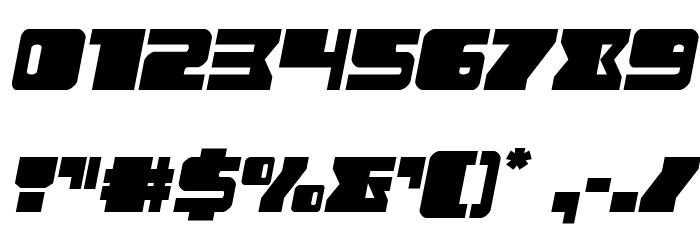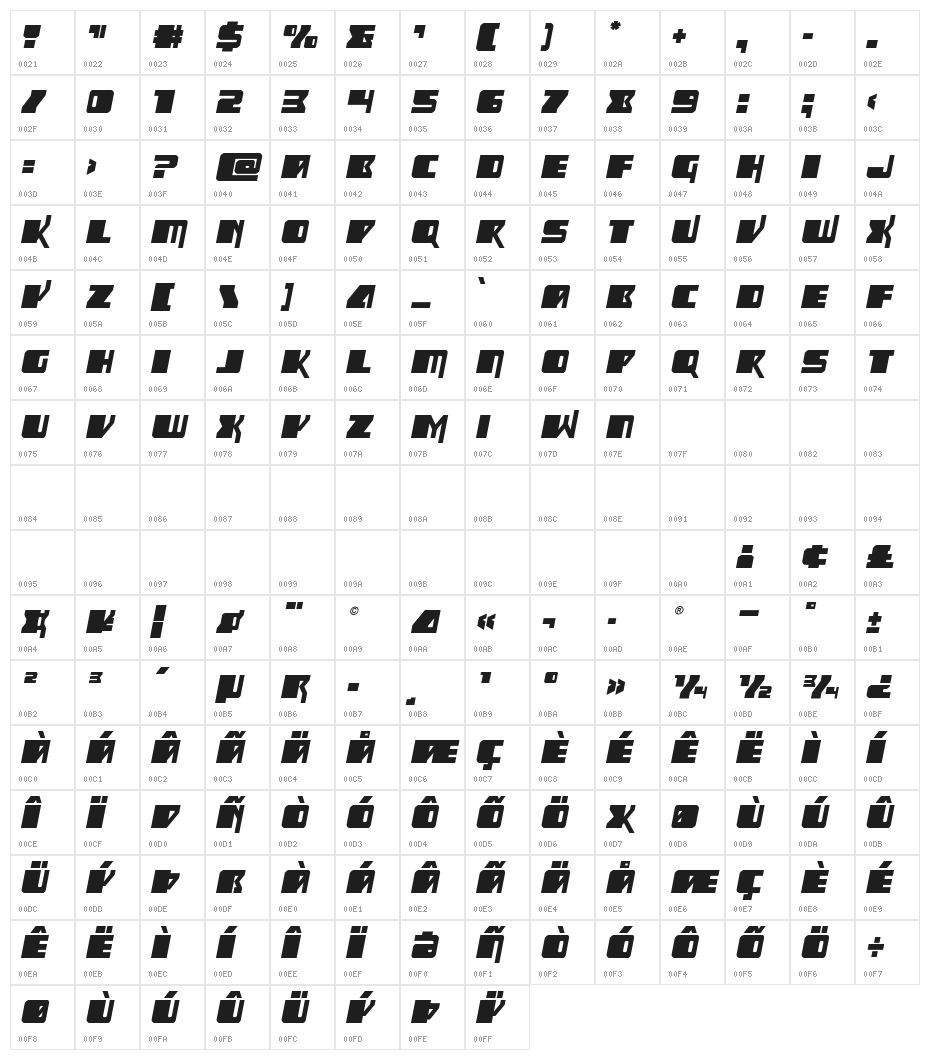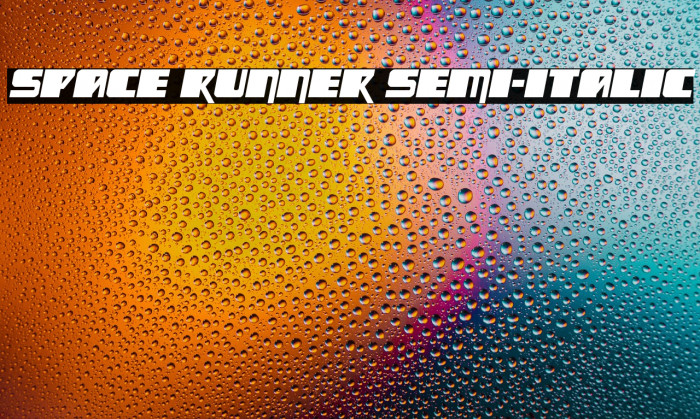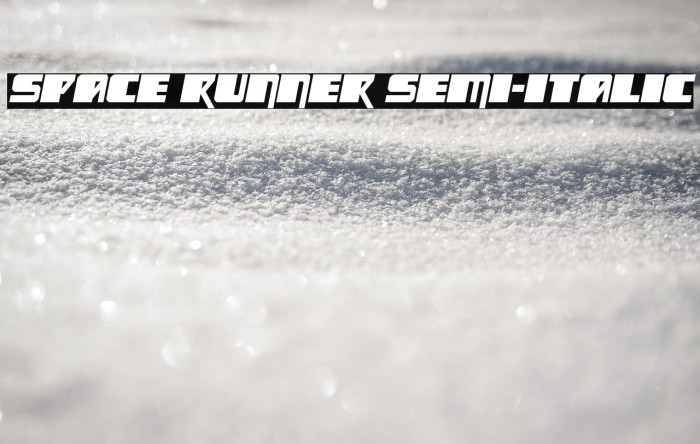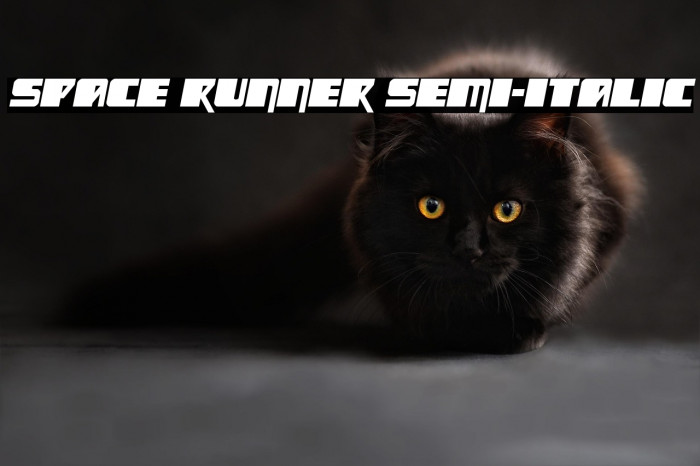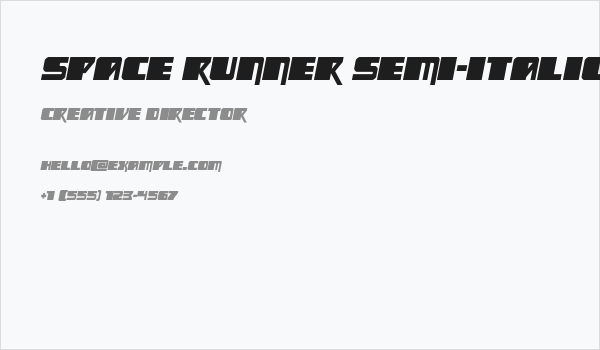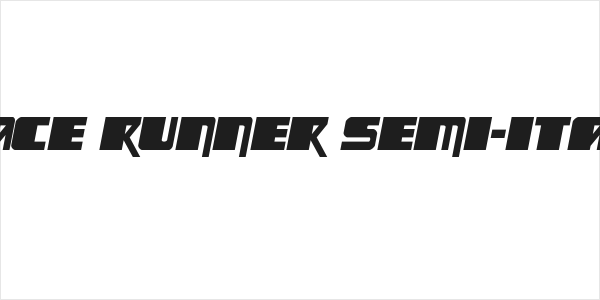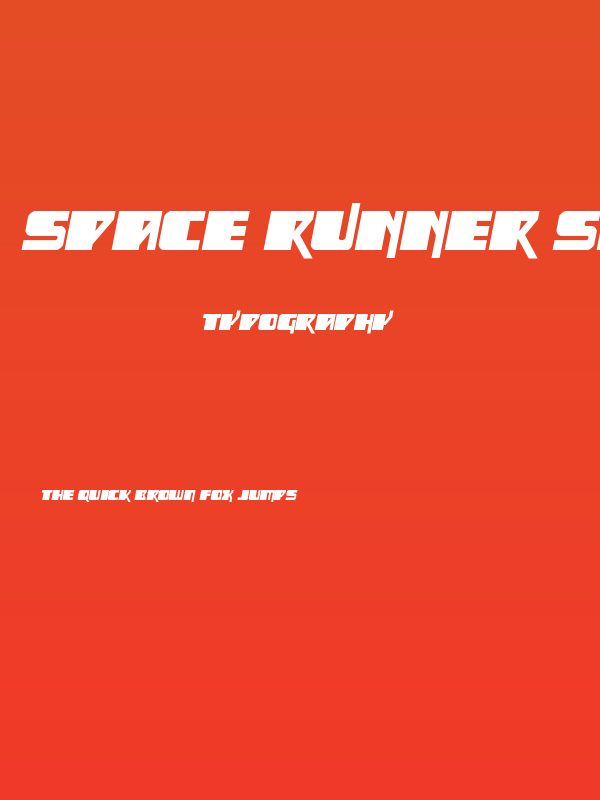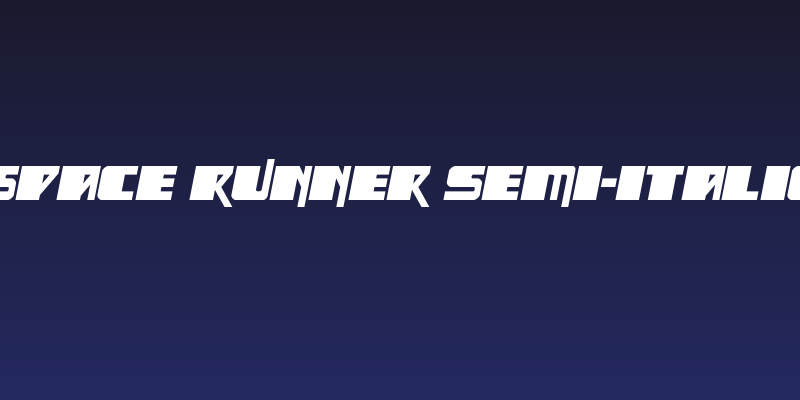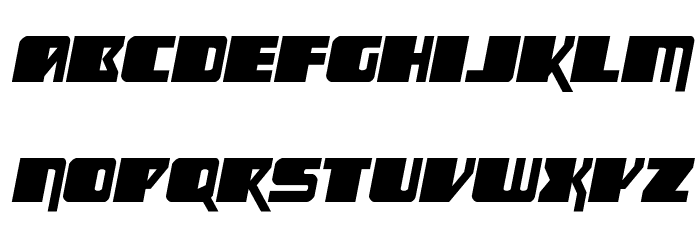
Space Runner Semi-Italic Font
Space Runner Semi-Italic Description
This font features a bold and futuristic design with sharp, angular edges and a distinct slant, giving it a dynamic and energetic appearance. The uppercase and lowercase letters maintain a consistent style, characterized by their geometric shapes and strong presence. The numbers and special characters follow the same design principles, ensuring uniformity across all glyphs. The font's bold weight and italicized form contribute to its modern and edgy aesthetic, making it suitable for projects that require a standout, contemporary look.
| Proposed Projects | Ideal for sci-fi themed designs, video game titles, movie posters, and technology branding. |